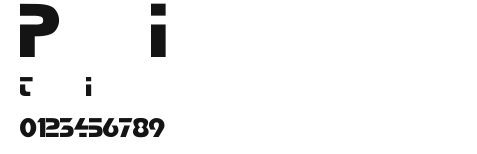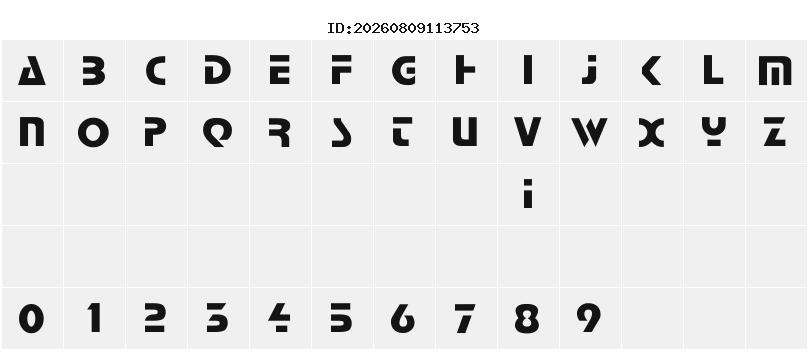
Pelnic Preview
• Font Name: Pelnic
• Full Font Name: Pelnic
• PostScript Name: Pelnic
About Pelnic.ttf
Pelnic.ttf is a modern, elegant sans-serif font designed for ultimate readability and visual harmony. Perfect for branding, headlines, web design, and print materials.